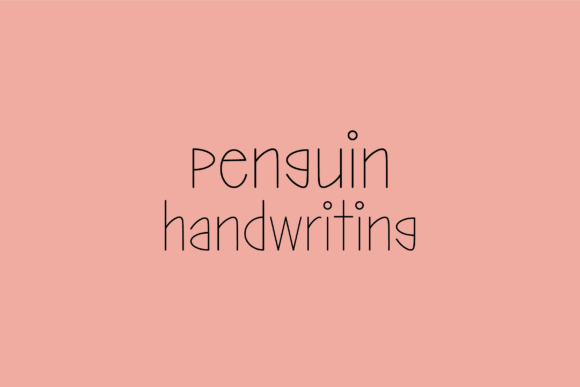
Journey into the realm of elegance and creativity with the Penguin Font, a mesmerizing script font crafted by Woracado. This enchanting typeface exudes a captivating blend of simplicity and playfulness, promising to infuse your designs with a touch of whimsy and cheer.
Unleash the vivacity of your imagination as you explore the myriad possibilities that await with Penguin Font. Its graceful strokes and charming curves dance across the page, evoking a sense of joy and lightheartedness. Whether you're crafting logos that demand attention or designing wedding invitations that radiate romance, Penguin Font is the perfect companion for your creative endeavors.
Elevate your projects to new heights with Penguin Font's versatility. Its captivating presence shines in print and digital media alike, making it an ideal choice for magazines, advertisements, quotes, and more. Let your words take flight with Penguin Font, as it effortlessly transforms them into visual masterpieces that capture hearts and leave a lasting impression.
With Penguin Font as your artistic ally, you'll discover a world of endless possibilities. Its user-friendly nature makes it accessible to designers of all levels, inviting you to embark on a journey of creative expression like never before. Embrace the magic of Penguin Font and witness the transformation of your designs into captivating works of art.